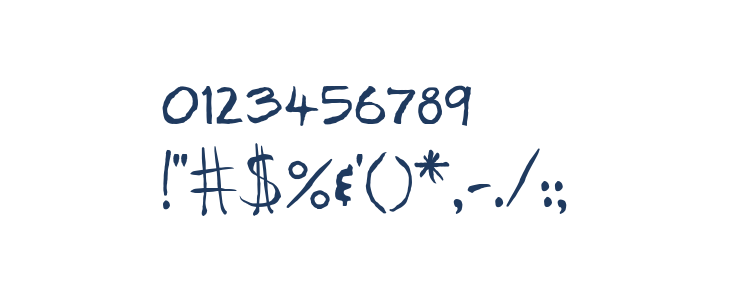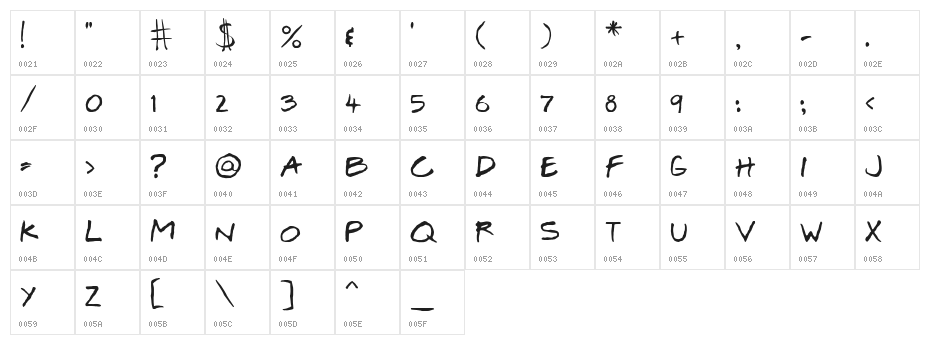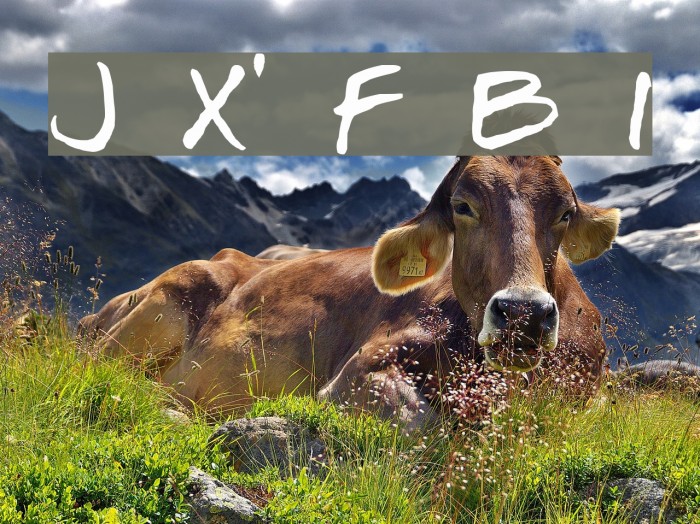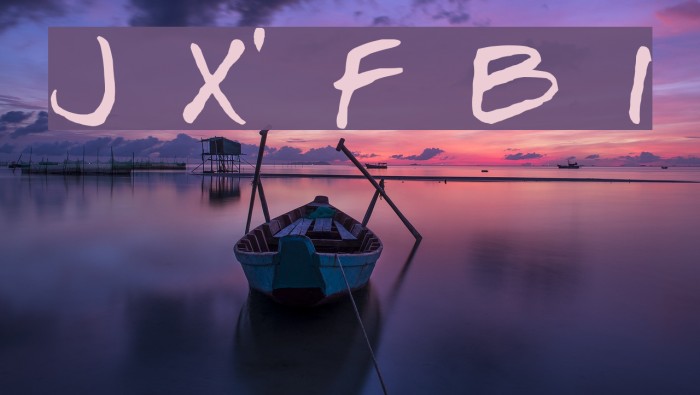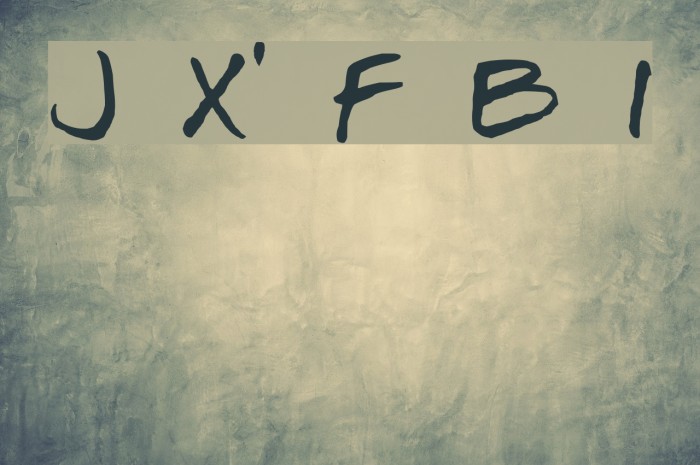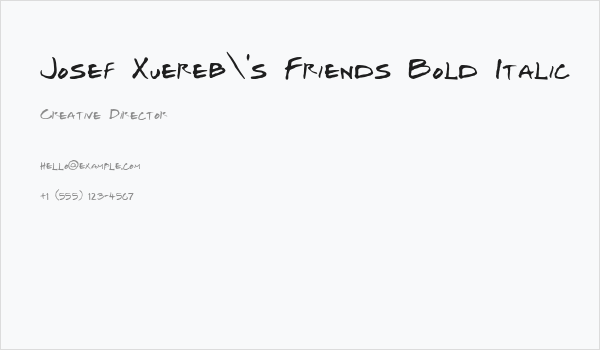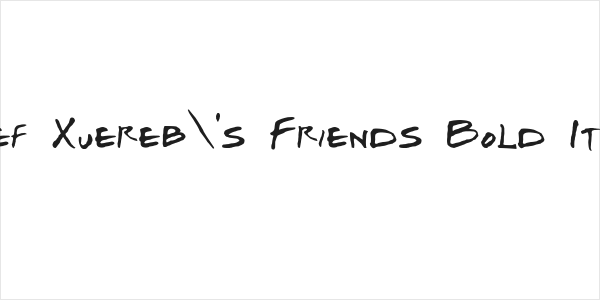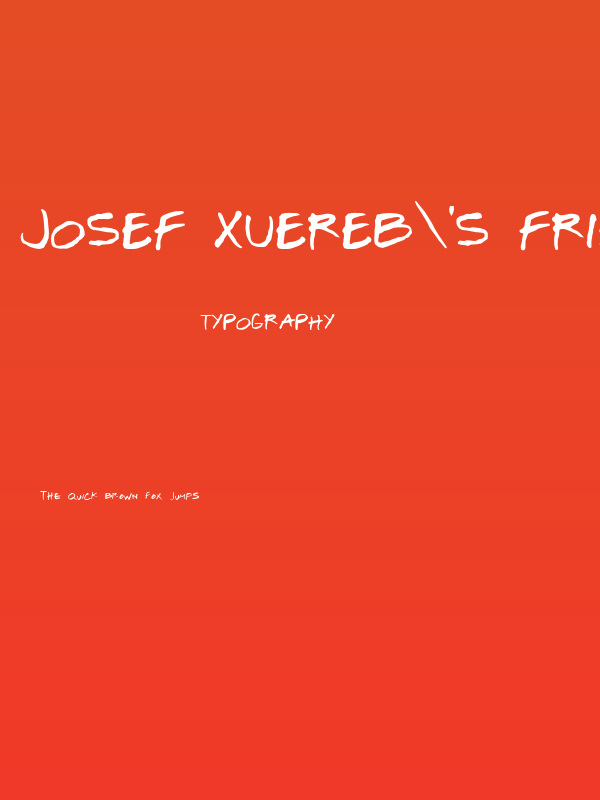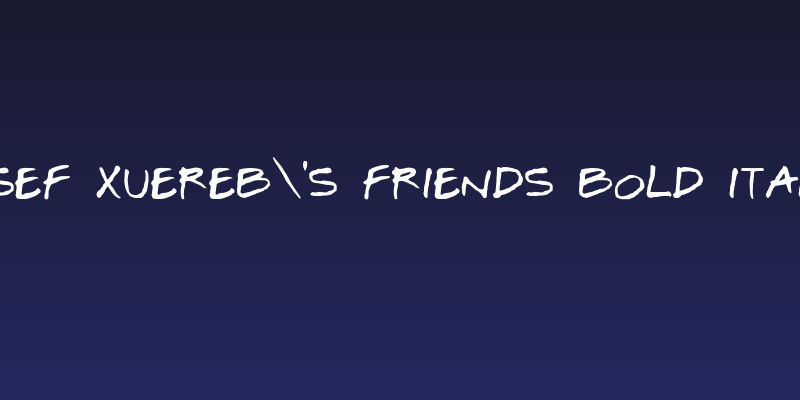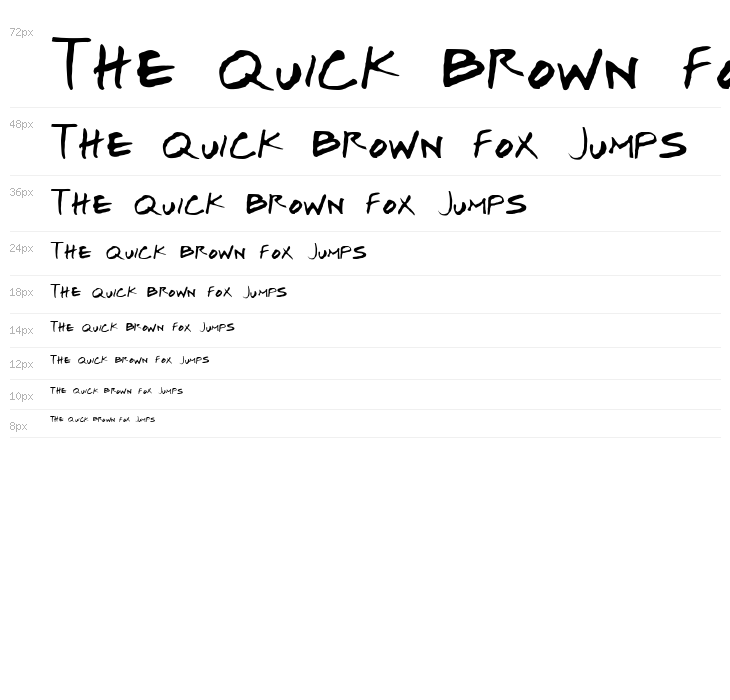
Josef Xuereb's Friends Bold Italic Font
Josef Xuereb's Friends Bold Italic Description
This font exhibits a bold and dynamic handwritten style, characterized by its expressive and slightly irregular strokes. The letters have a fluid and organic appearance, giving them a lively and energetic feel. The uppercase and lowercase letters maintain a consistent style, with a noticeable slant that adds to the font's informal and casual nature. The numerals and special characters are crafted with the same attention to detail, ensuring a cohesive look across all glyphs. This font's boldness and italicized form make it stand out, suitable for projects that require a personal touch or a creative flair.
| Proposed Projects | Ideal for creative projects such as greeting cards, posters, branding, and social media graphics where a personal and artistic touch is desired. |